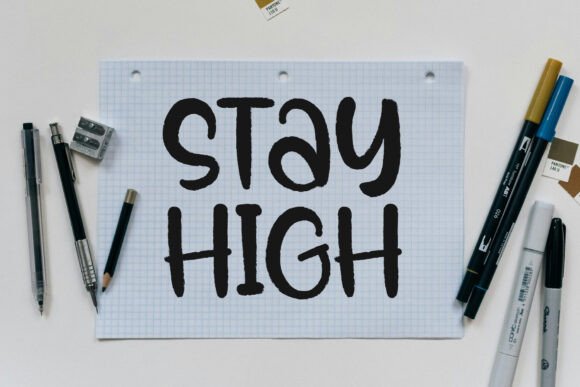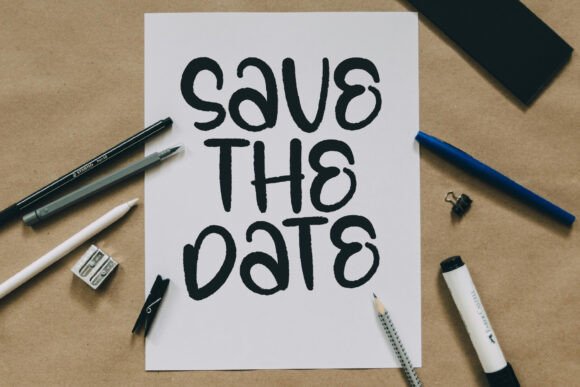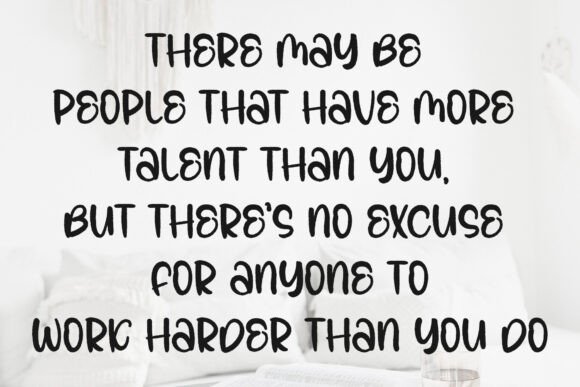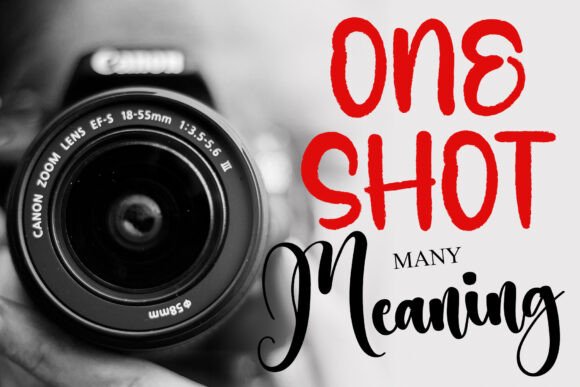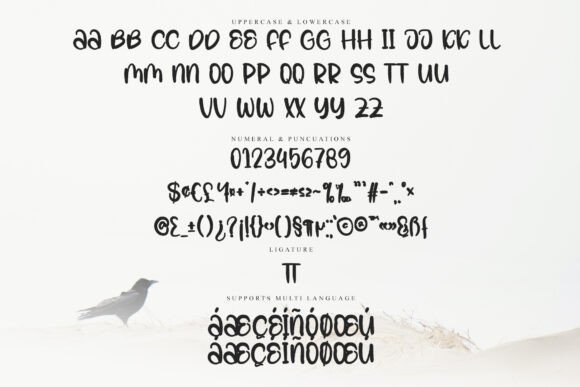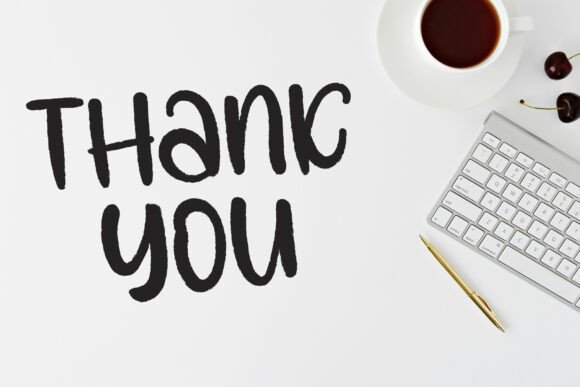
Introducing Boho Display Font: The Ultimate Choice for Bold and Captivating Designs
In the world of typography, a font can make or break a design. When it comes to creating visually stunning and attention-grabbing projects, the right font is essential. This is where Boho Display Font comes in – a bold and captivating font that commands attention with its strong, distinctive letterforms. Designed to stand out, Boho Display blends creativity and impact, making it perfect for projects that need an eye-catching and memorable typographic style.
What Makes Boho Display Font So Special?
Boho Display Font is not just another font – it’s an experience. Its bold and powerful letterforms are designed to leave a lasting impression on your audience. Whether you’re working on branding, posters, or digital designs, Boho Display adds a touch of bold magic to your visuals. Here are some key features that make Boho Display Font a must-have for designers and crafters:
- Bold and Captivating: Boho Display Font is designed to grab attention. Its strong, distinctive letterforms make it perfect for headlines, titles, and any design element that needs to stand out.
- Versatile: Boho Display Font is versatile and can be used across various design projects, from branding and posters to digital designs and more.
- Unique Style: Boho Display Font has a unique style that sets it apart from other fonts. Its bold and captivating letterforms add a touch of magic to your designs.
Why Choose Boho Display Font for Your Design Projects?
When it comes to choosing a font for your design project, there are many options available. However, Boho Display Font stands out from the rest. Here are some reasons why you should consider Boho Display Font for your next project:
- Make a Statement: Boho Display Font is designed to make a statement. Its bold and captivating letterforms ensure that your message is heard loud and clear.
- Enhance Your Brand: Boho Display Font can help enhance your brand’s visual identity. Its unique style and bold letterforms make it perfect for branding projects that need to stand out.
- Easy to Read: Despite its bold style, Boho Display Font is easy to read, making it perfect for designs that need to communicate a message quickly and effectively.
- Timeless Appeal: Boho Display Font has a timeless appeal that ensures your designs will remain relevant for years to come.
How to Use Boho Display Font in Your Designs
Using Boho Display Font in your designs is easy. Here are some tips to get you started:
- Pair it with Other Fonts: Boho Display Font works well when paired with other fonts. Try pairing it with a simple sans-serif font for a bold and modern look.
- Use it for Headlines: Boho Display Font is perfect for headlines and titles. Use it to grab attention and make a statement.
- Experiment with Colors: Boho Display Font works well with a variety of colors. Experiment with different colors to find the one that works best for your design.
- Keep it Simple: Don’t overcomplicate your design. Keep it simple and let Boho Display Font do the talking.
In conclusion, Boho Display Font is a bold and captivating font that commands attention with its strong, distinctive letterforms. Designed to stand out, Boho Display blends creativity and impact, making it perfect for projects that need an eye-catching and memorable typographic style. Whether you’re working on branding, posters, or digital designs, Boho Display adds a touch of bold magic to your visuals. With its versatility, ease of use, and unique style, Boho Display Font is a must-have for designers and crafters.